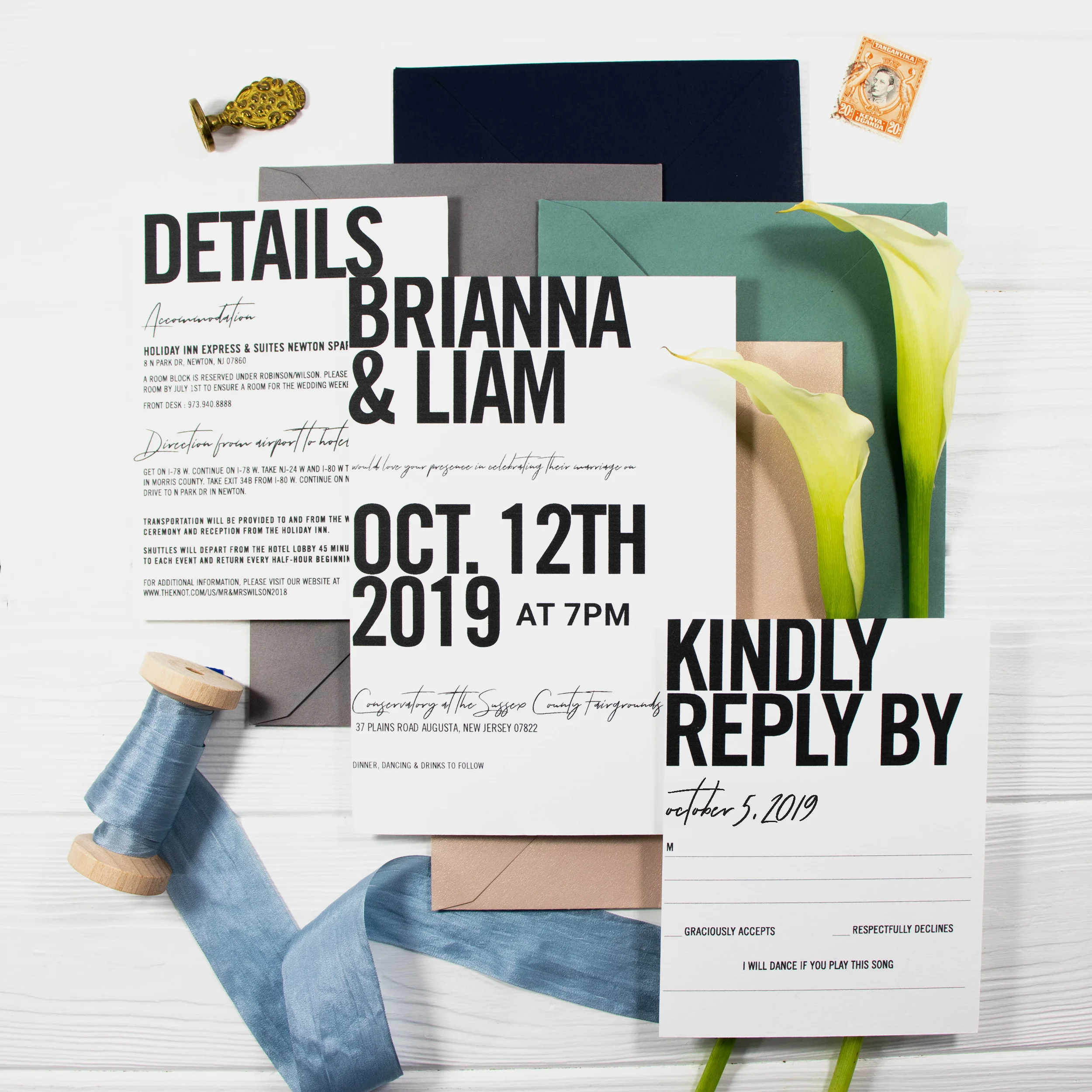
SIMPLY BOLD - “JUST TYPE”
Simply Bold is the first suite that took on my "JUST TYPE" challenge. The primary font for this suite is
TRADE GOTHIC CONDENSED NO 2O. BOLD. I combined the minimalist, elegant and bold to this suite.